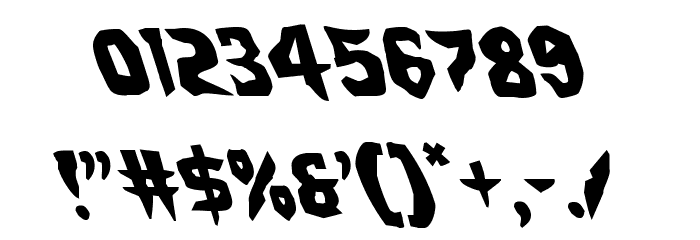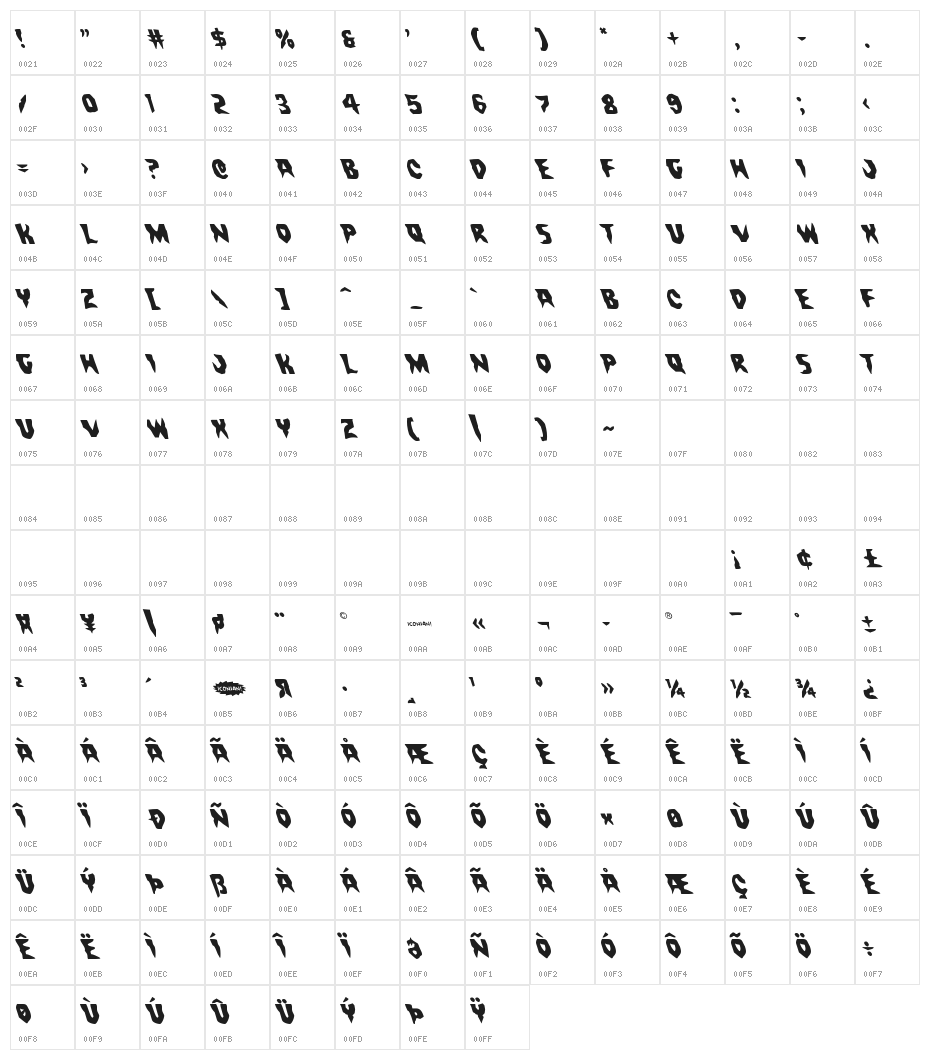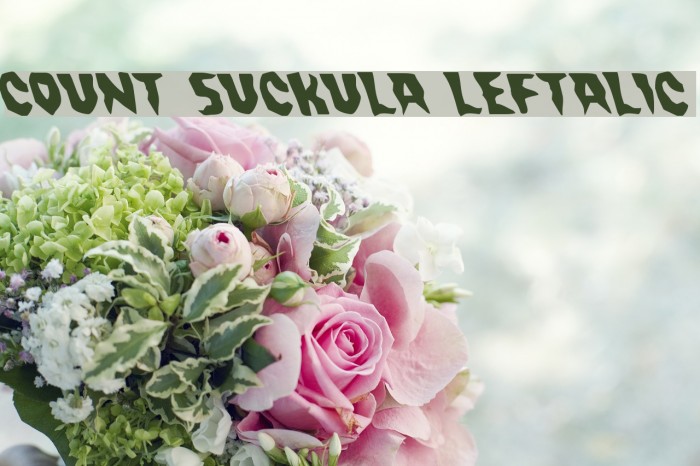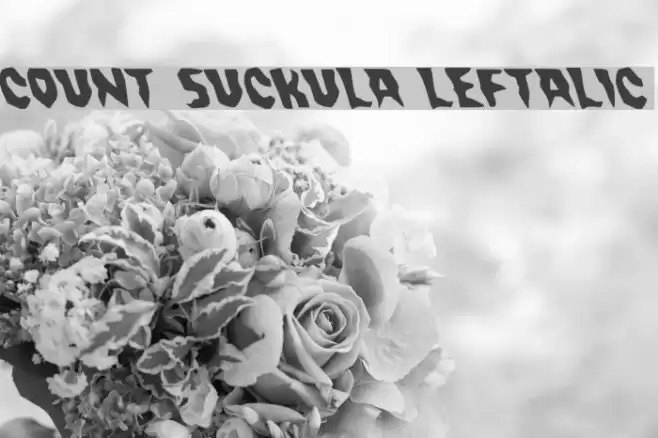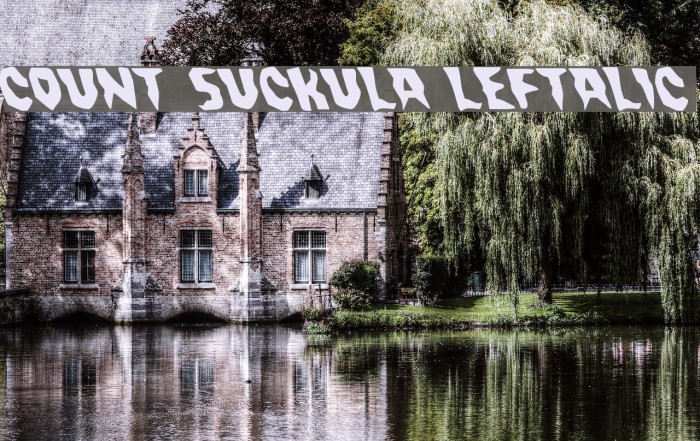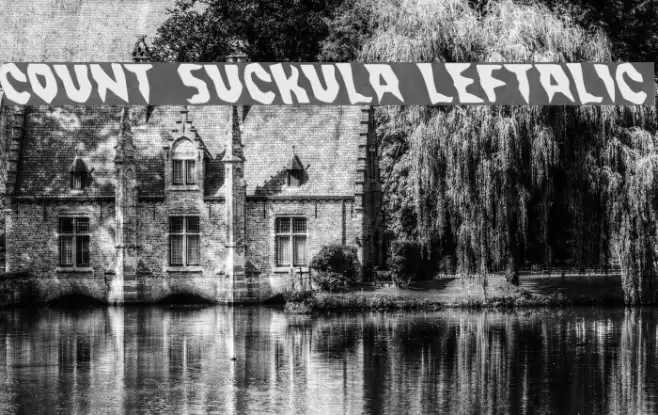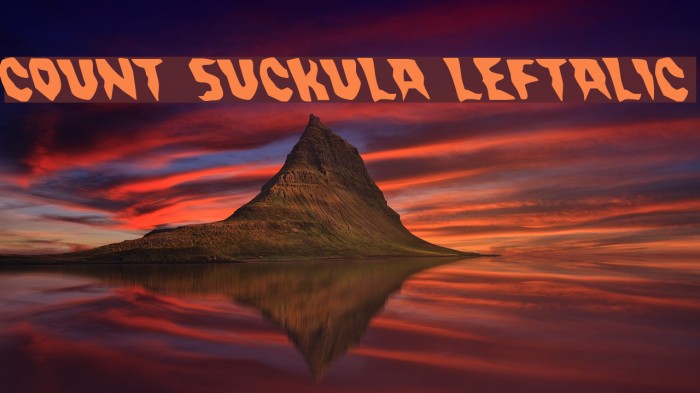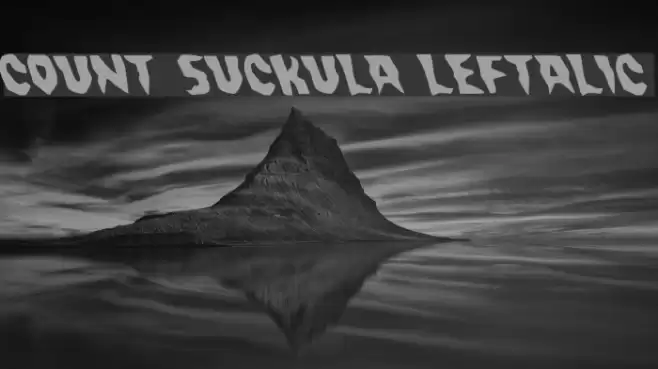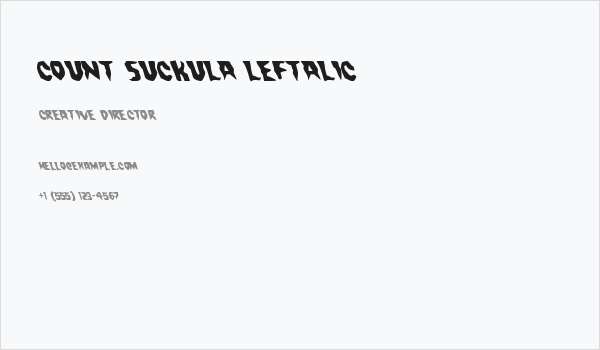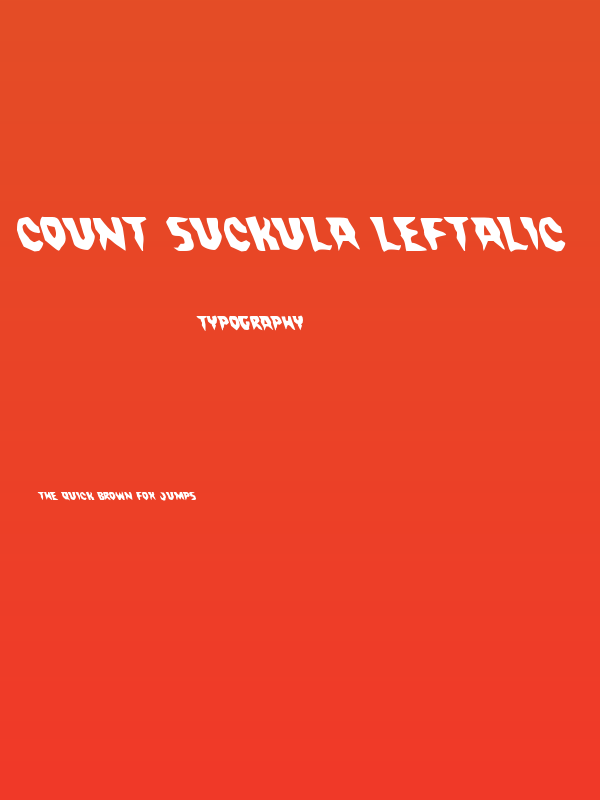
Count Suckula Leftalic Font
Count Suckula Leftalic Description
This font exhibits a bold and dynamic style with a distinct leftward slant, creating a sense of movement and energy. The characters are heavily stylized with sharp, angular edges and irregular shapes, giving it a unique and edgy appearance. The uppercase and lowercase letters maintain a consistent design, while the numbers and special characters integrate seamlessly into the overall aesthetic. The font's boldness and dramatic flair make it ideal for eye-catching designs that require a strong visual impact.
| Proposed Projects | Perfect for Halloween-themed designs, edgy posters, album covers, and video game graphics. |